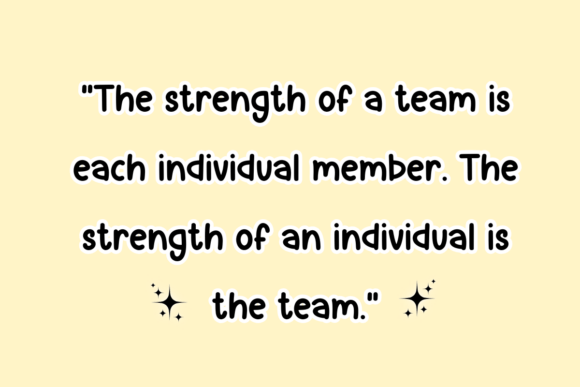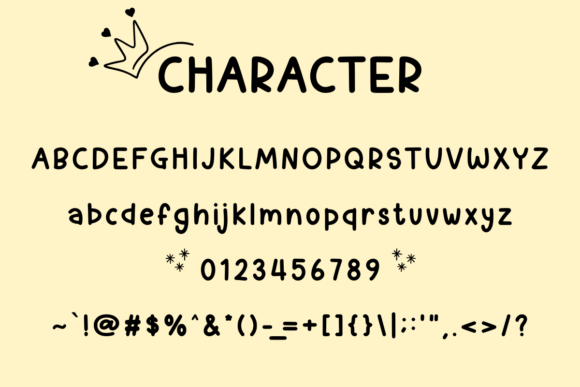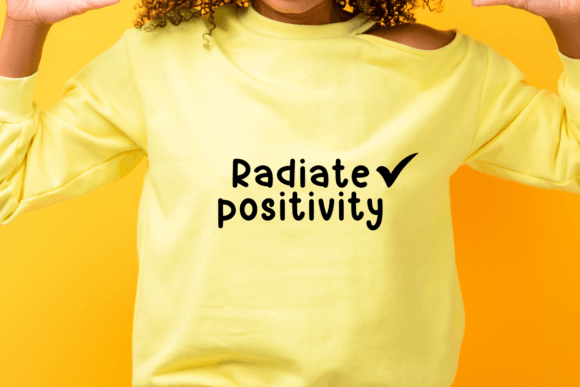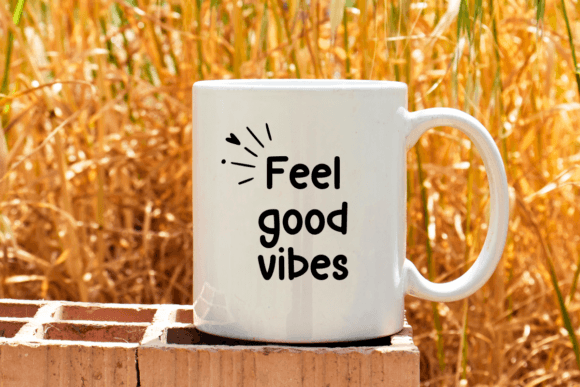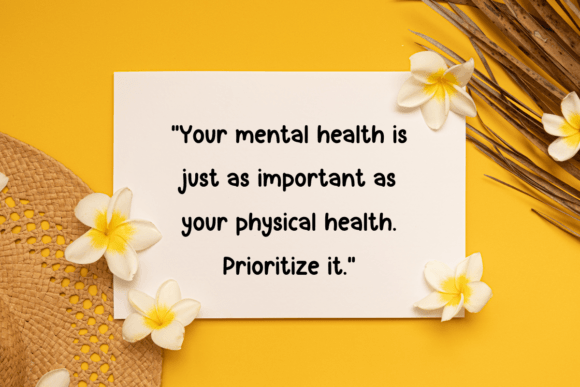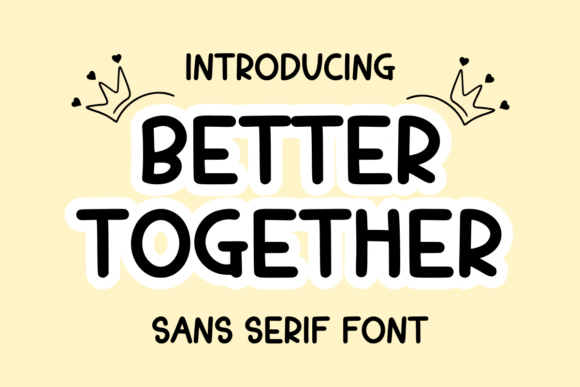
The Ultimate Font for Creatives: A Deep Dive into Better Together
I’ll never forget the time I was working on a project for a client who wanted a fun, playful font to match their brand’s personality. I spent hours scouring the internet for the perfect one, but nothing seemed quite right. That was until I stumbled upon Better Together, a cute handwritten sans serif font that instantly caught my eye. In this article, I’ll share my experience with Better Together, its features, and how to make the most of it in your designs.
My Honest Review of Better Together
I’ve had the pleasure of working with Better Together on several projects, and here’s what I think:
- ✨ It’s incredibly versatile and can be used for a wide range of projects, from crafts to digital designs.
- ✅ The font is highly legible, even at small sizes.
- ✅ It’s perfect for creating greeting cards, invitations, and other paper crafts.
- ✅ The font has a friendly, approachable feel that’s perfect for brands that want to connect with their audience.
Of course, no font is perfect, and Better Together has a few quirks:
- ⚠️ Some users may find the font a bit too casual for certain projects.
- 🤔 The font doesn’t have a huge range of weights, which can limit its use in certain designs.
Better Together has a range of OpenType features and glyphs that can add more personality to your designs. Here are a few tips for using them:
- Use stylistic alternates to create a more playful or whimsical look.
- Experiment with different glyphs to add more visual interest to your design.
- Take advantage of ligatures to create a more cohesive look.
The Story Behind Better Together
Better Together was designed with the goal of creating a font that’s both fun and functional. The designer wanted to create a font that would be perfect for a wide range of projects, from crafts to digital designs. The result is a font that’s friendly, approachable, and highly versatile.
| Is Better Together suitable for body text? | While Better Together is highly legible, it’s best suited for headlines and titles rather than body text. |